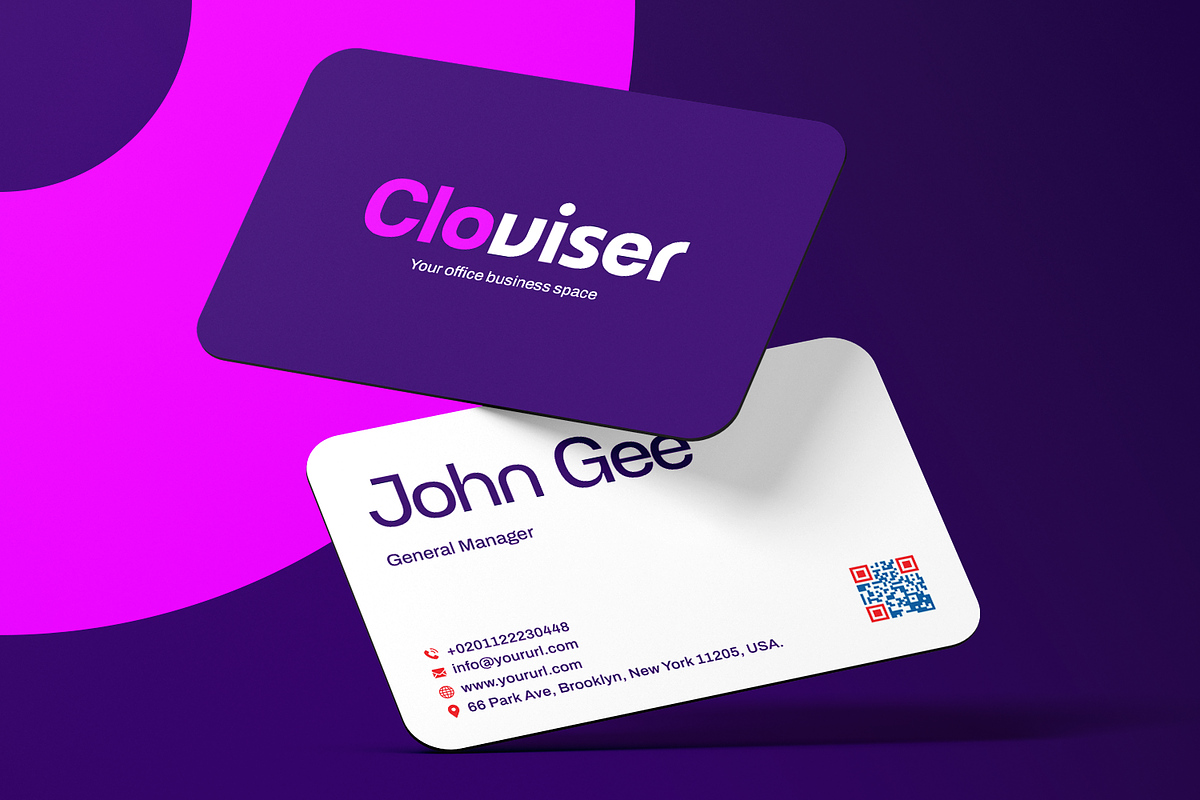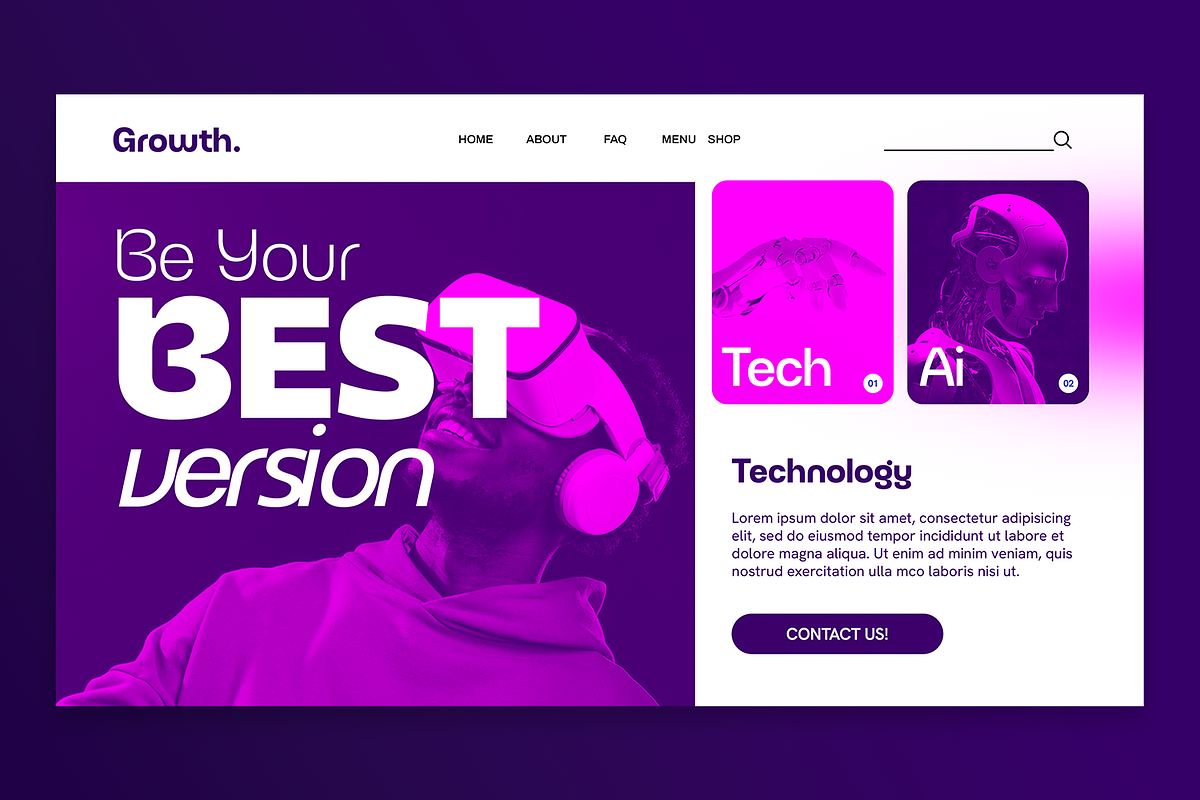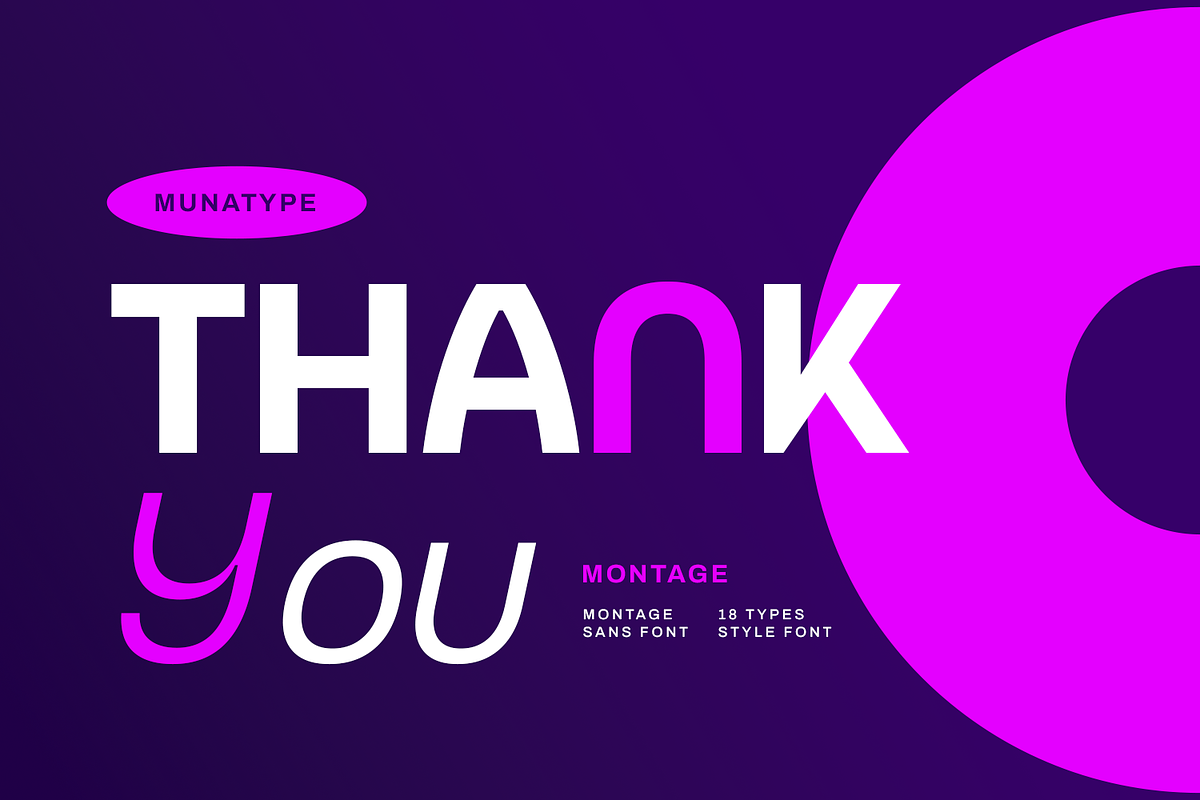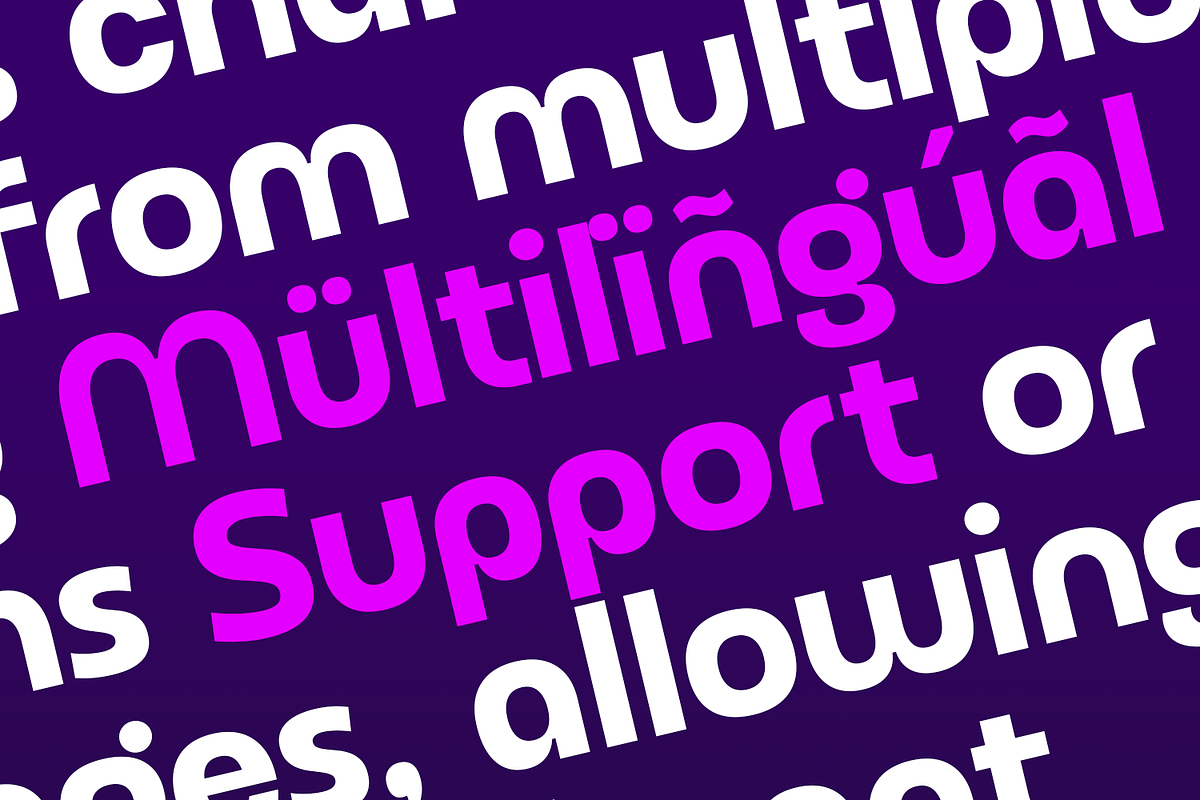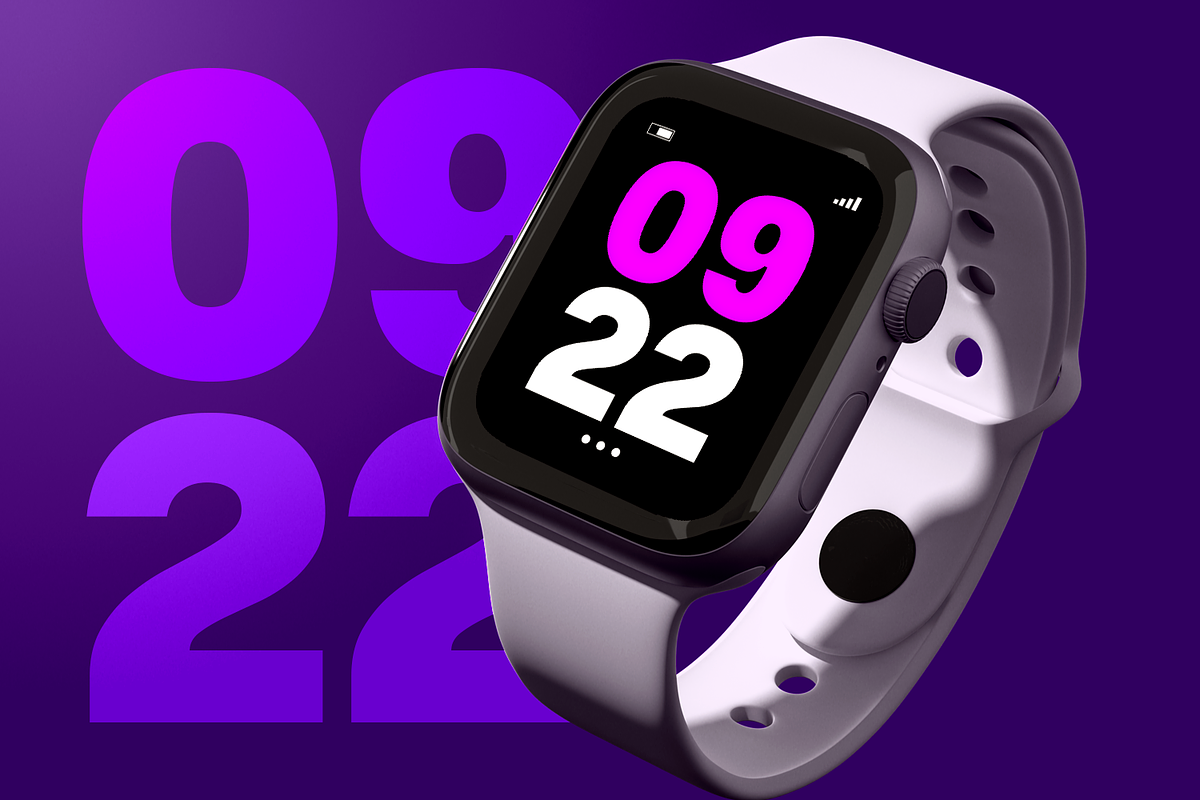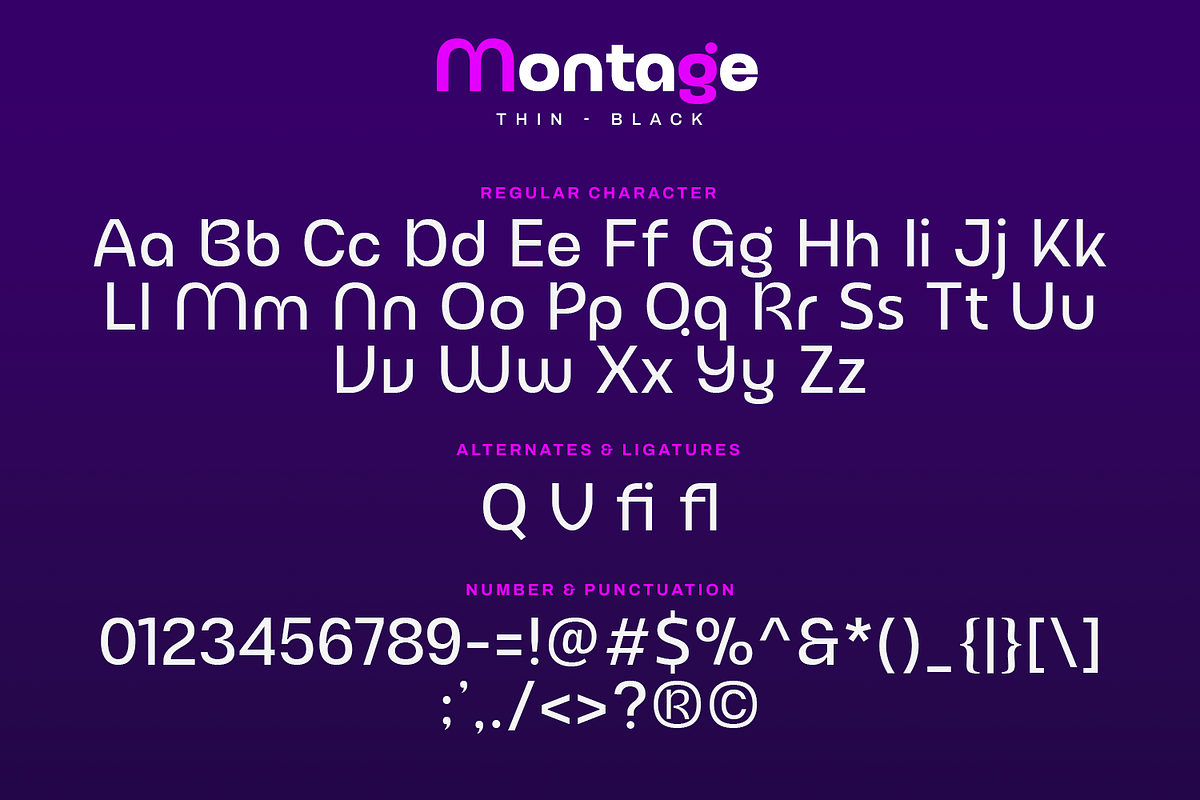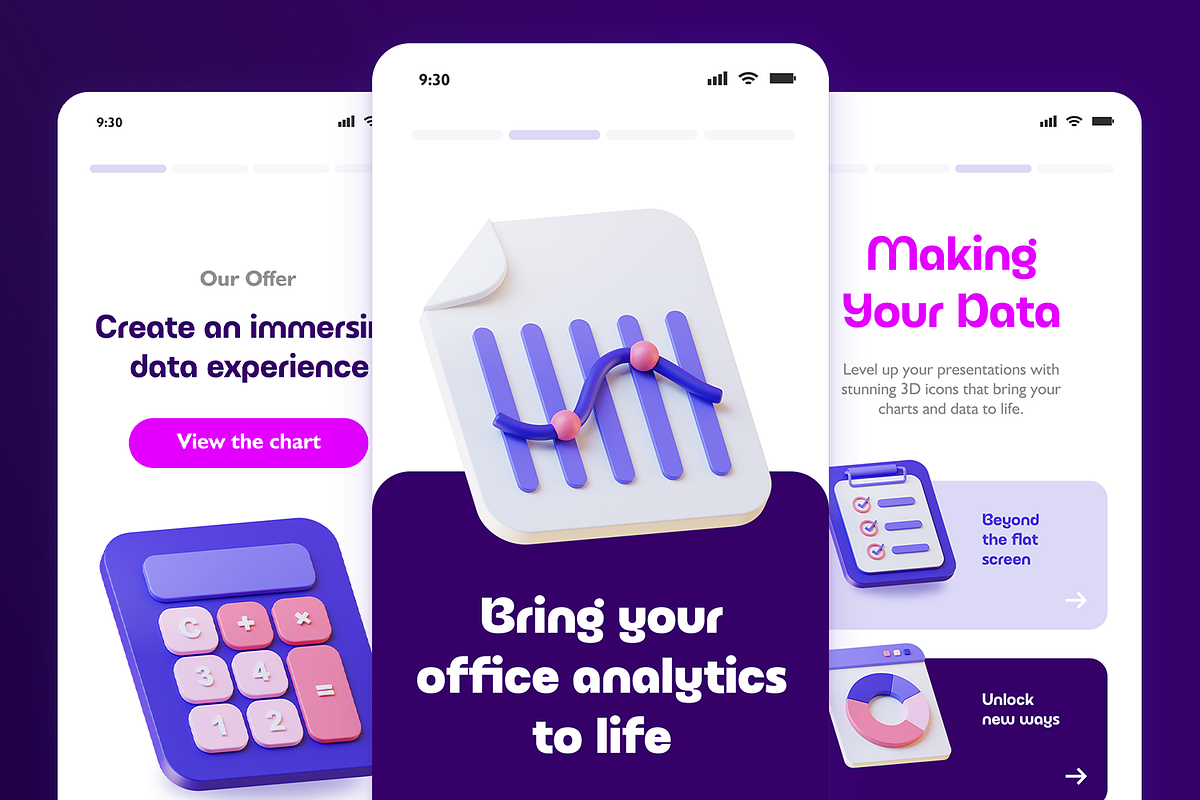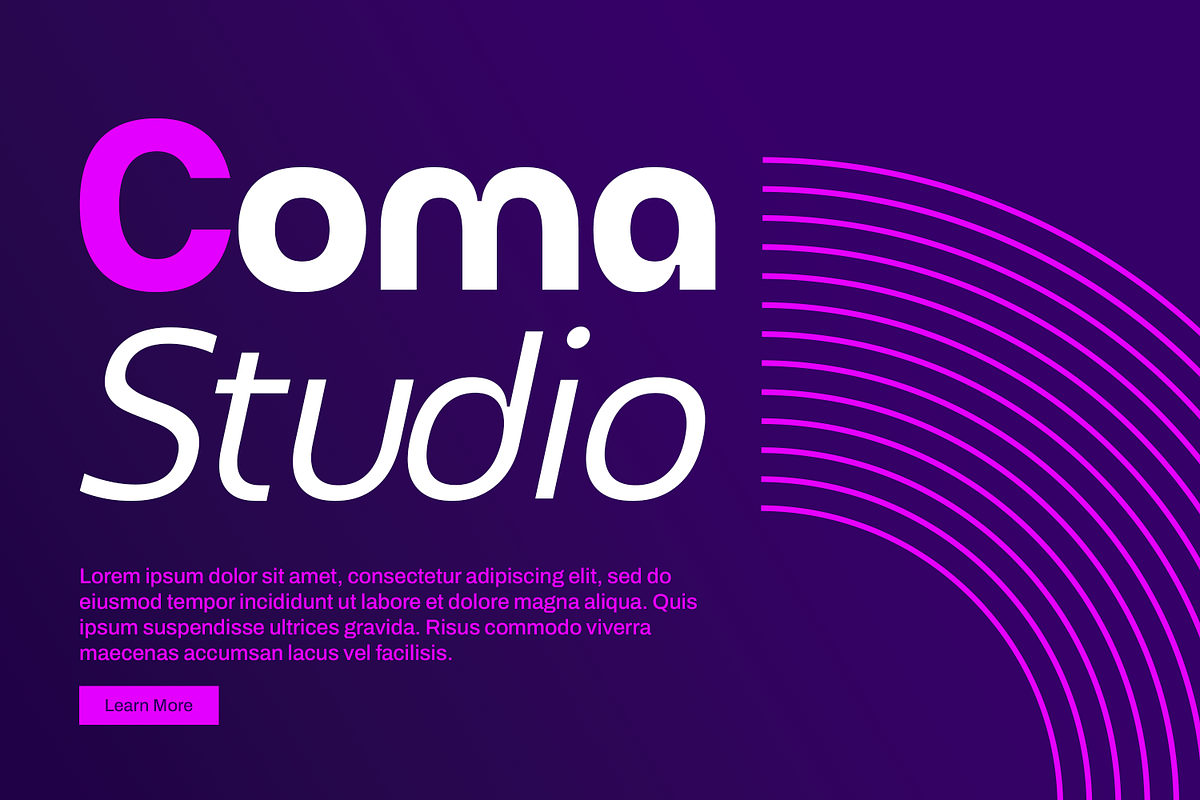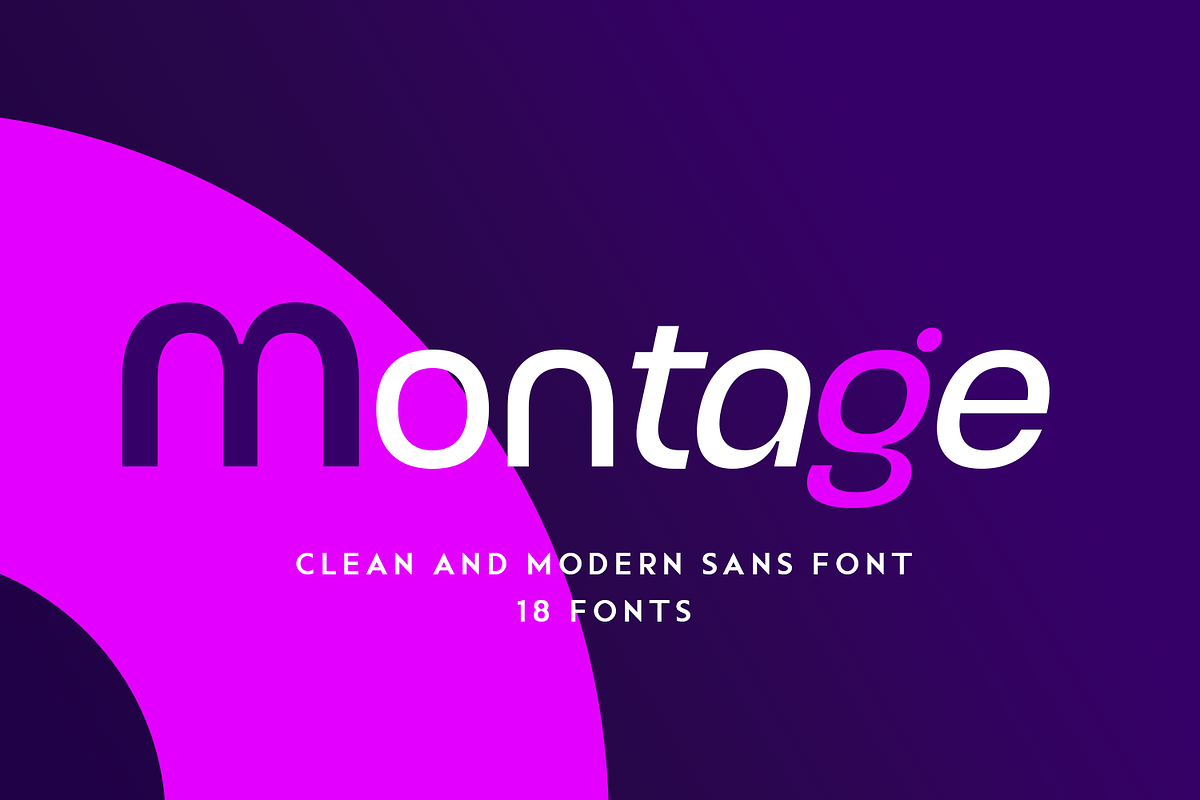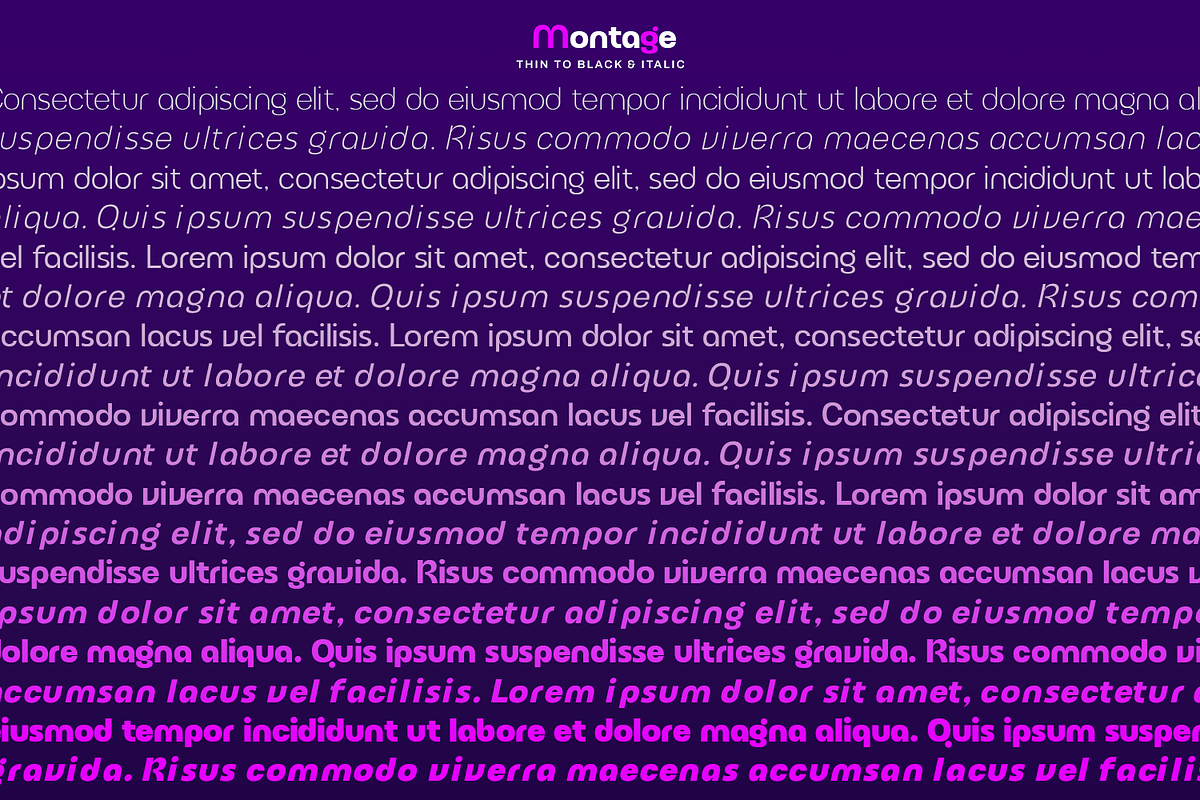
Montage
Montage is a refined sans-serif display font crafted to deliver a bold and modern statement. Its clean lines and confident presence make it the perfect choice for branding, logos, and impactful visual identities that demand attention.
From premium packaging and editorial layouts to digital banners and signage, Montage thrives in creative projects where clarity and sophistication are key. It transitions seamlessly across industries—whether used in high-fashion campaigns, corporate presentations, or contemporary web design—ensuring every project leaves a memorable impression.
With precise kerning and meticulously balanced proportions, Montage offers exceptional visual harmony. Designed for prominent applications, it stands out in titles, headers, and focal text elements, amplifying the strength of a brand’s message while maintaining an elevated aesthetic.
Montage’s versatility lies in its ability to adapt to both minimalistic and expressive designs. Whether paired with bold imagery or understated compositions, it enhances the overall visual narrative with confidence and elegance.
Elevate every creative project with Montage and experience the difference of a truly distinctive display font. Add it to the design arsenal and create visuals that leave a lasting mark.